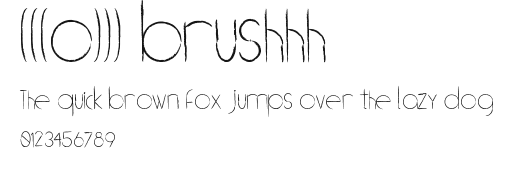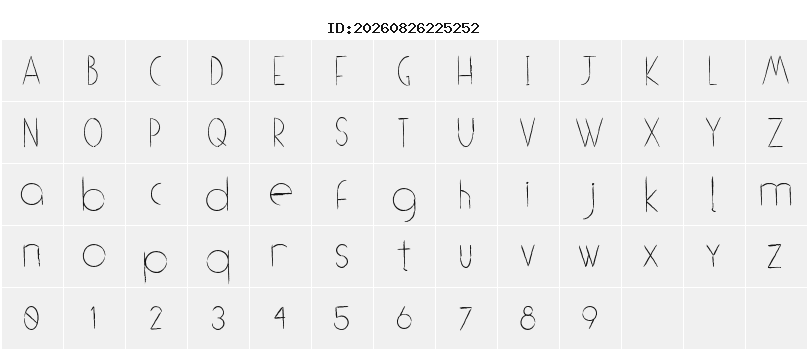
(((o))) brushhh Preview
About (((o))) brushhh.ttf
(((o))) brushhh.ttf is a modern, elegant sans-serif font designed for ultimate readability and visual harmony. Perfect for branding, headlines, web design, and print materials.